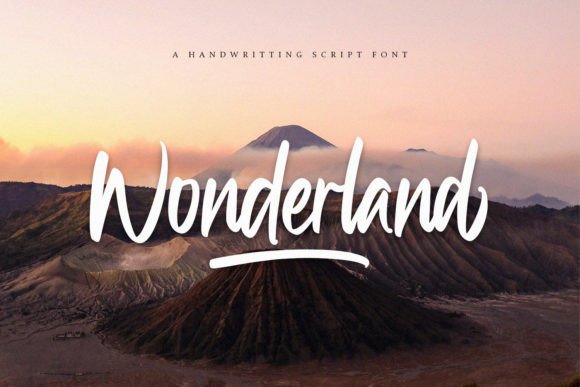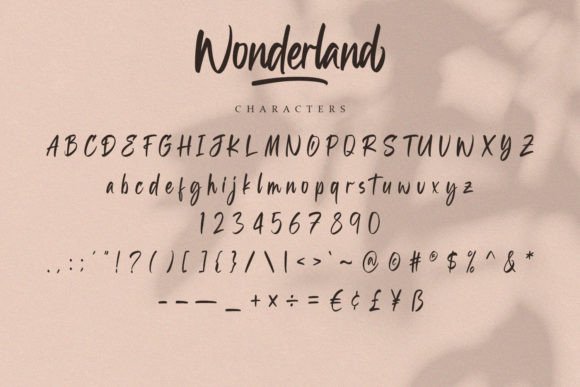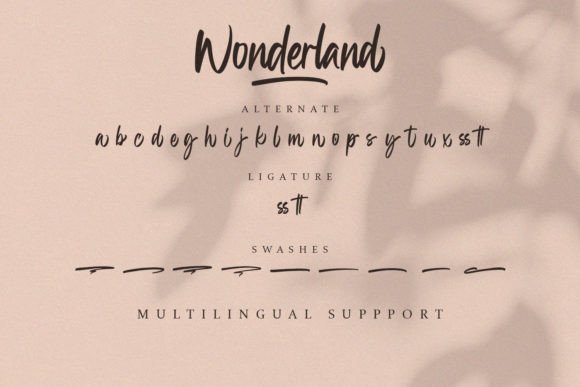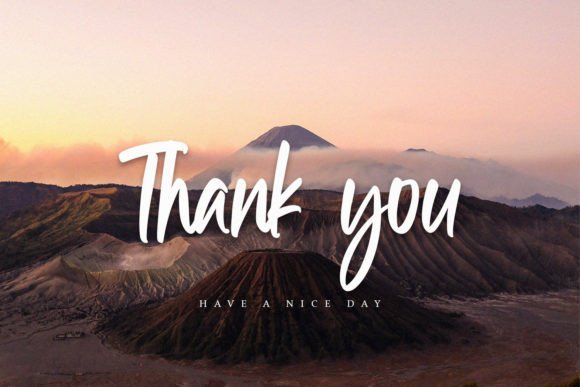
About Wonderland Font
Wonderland is a beautiful and light handwritten font with a unique feel and a stunning impact. It will add a luxury spark to any design project that you wish to create! This font is PUA encoded which means you can access all of the amazing glyphs and swashes with ease!